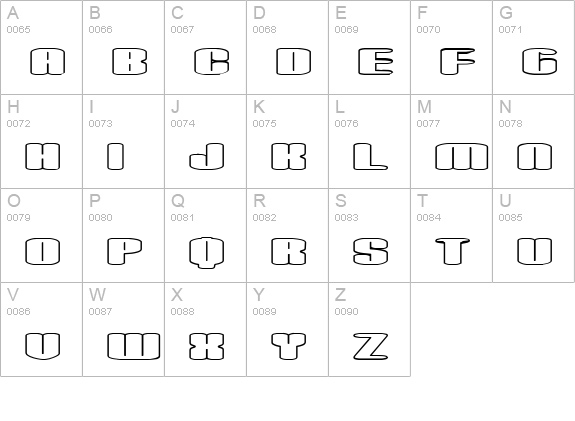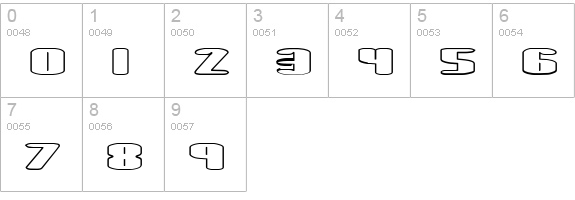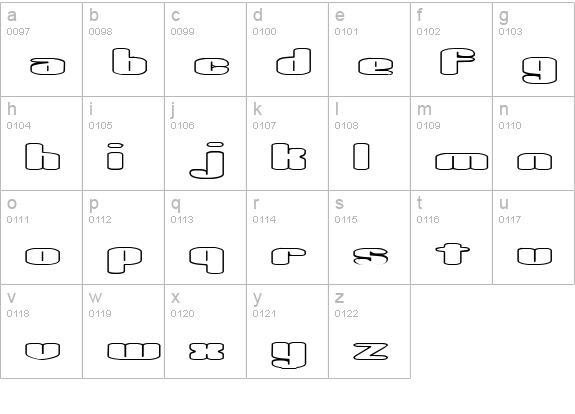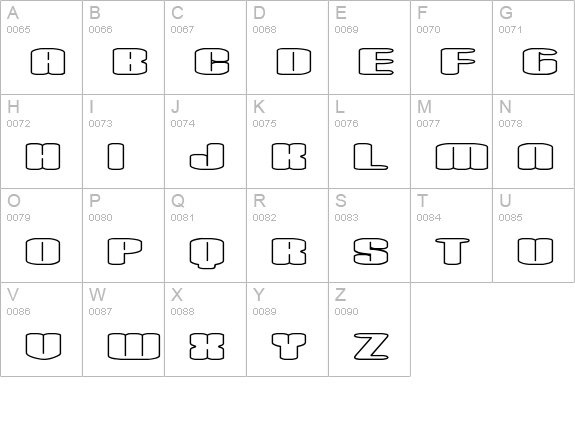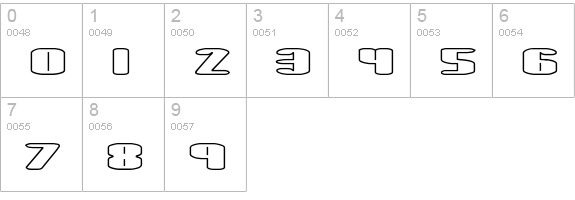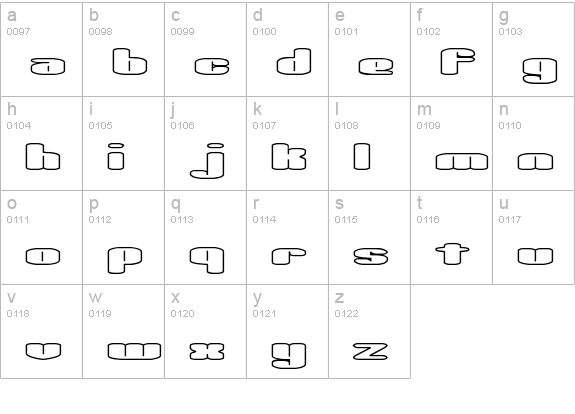
Spacious Outline BRK Font Details
Spacious Outline BRK font is a stunning display typeface that is perfect for adding a bold and eye-catching touch to your designs. With its spacious and clean outline design, this font is ideal for headlines, logos, posters, and any other project that requires a strong visual impact. This font exudes a sense of modernity and sophistication, making it a versatile choice for both professional and creative endeavors. Its bold and geometric shapes give it a unique personality, while its generous spacing adds an airy and contemporary feel to any composition. One of the best features of Spacious Outline BRK font is that it is free to download at FontsMarket.com. This means that you can enhance your designs with this exceptional font without having to spend a penny. Whether you are a professional designer or a hobbyist, this font is readily available to elevate your projects to the next level. Don't miss out on the opportunity to utilize the striking Spacious Outline BRK font in your designs. Download it for free at FontsMarket.com and let your creativity soar with this captivating typeface.